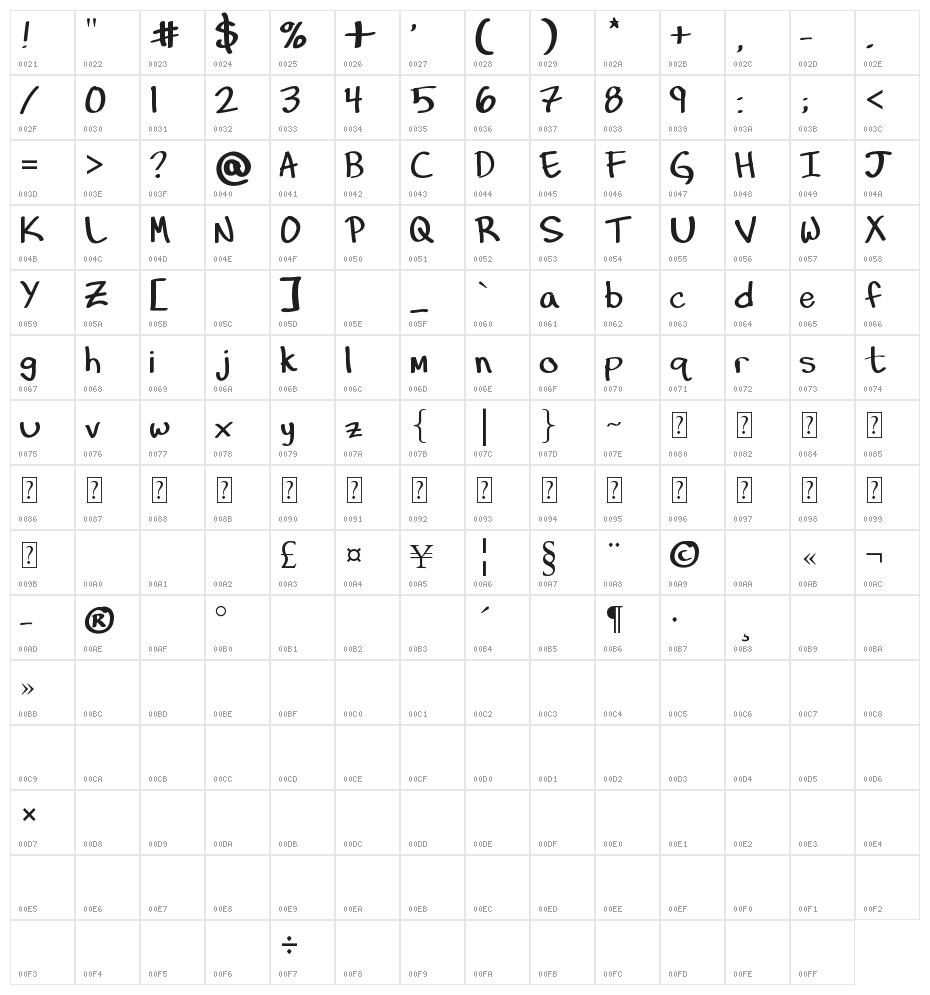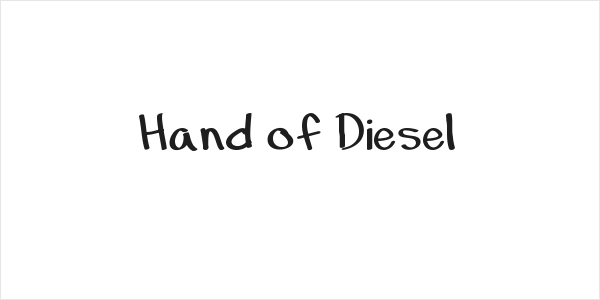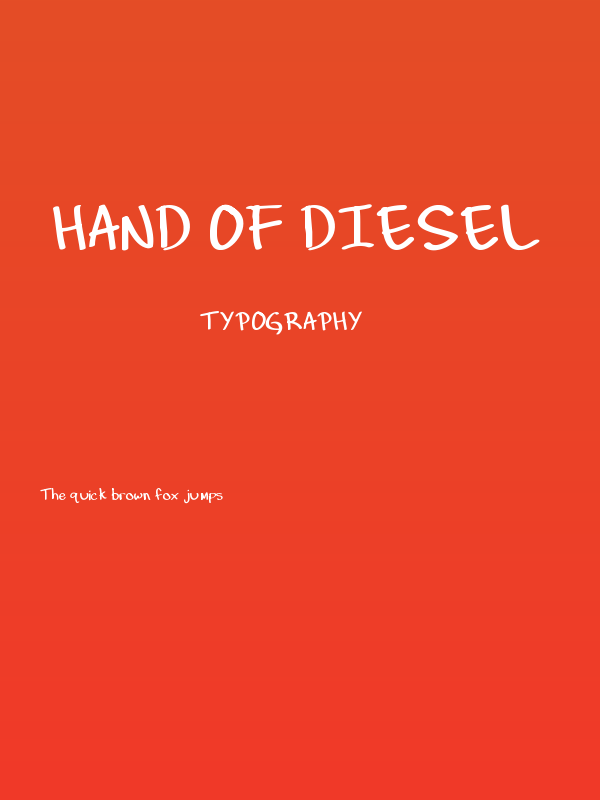
Hand of Diesel Font
Hand of Diesel Description
This font exudes a playful and casual handwritten style, characterized by its bold and slightly irregular strokes. The letters have a natural flow, with rounded edges and a slight slant, giving it a friendly and approachable appearance. The uppercase and lowercase letters maintain a consistent style, with the uppercase being slightly larger and more pronounced. Numbers and special characters are designed to match the overall aesthetic, ensuring a cohesive look across all text elements. The font's informal nature makes it suitable for projects that require a personal touch.
| Use Case | Headlines, Logos, Informal text |
| Proposed Projects | Ideal for greeting cards, children's books, casual branding, and social media graphics. |